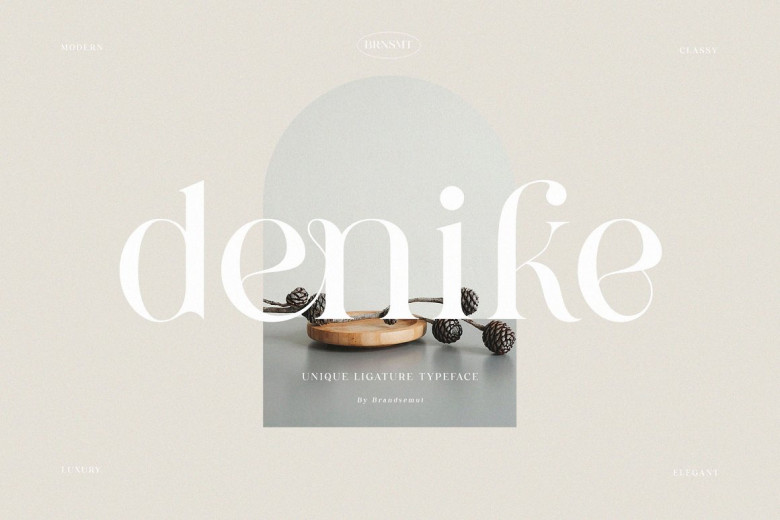
Denike Font is a classy and elegant serif typeface – This font is both modern and nostalgic and works great for logos, magazine, social media. Already matched up and ready to be used together for your next design!
For those of you who are needing a touch of elegant, stylish, classy, chic and modernity for your designs, this font was created for you!
Denike Modern Serif Typeface